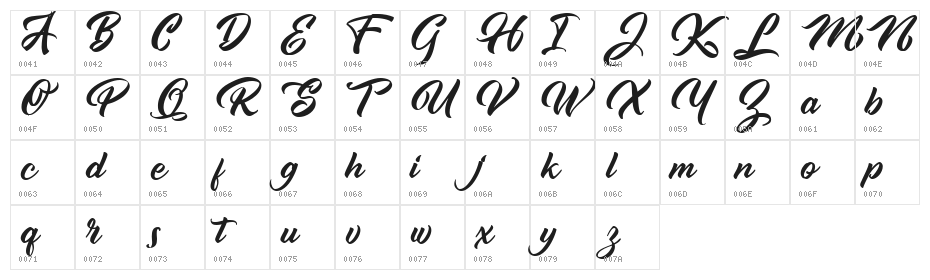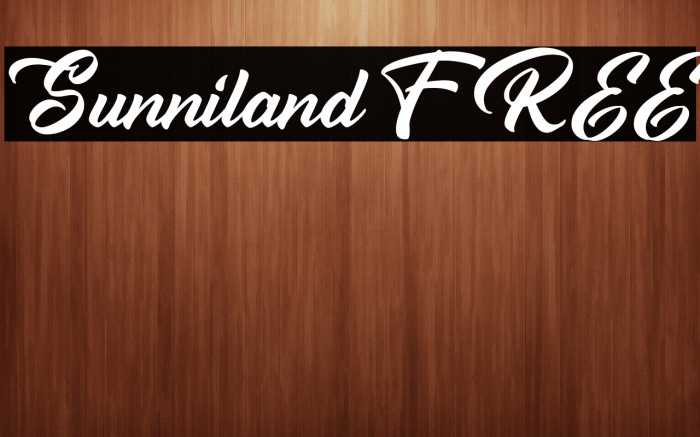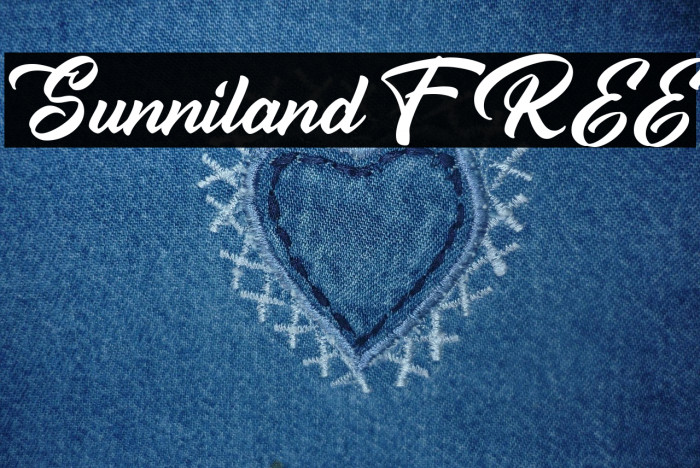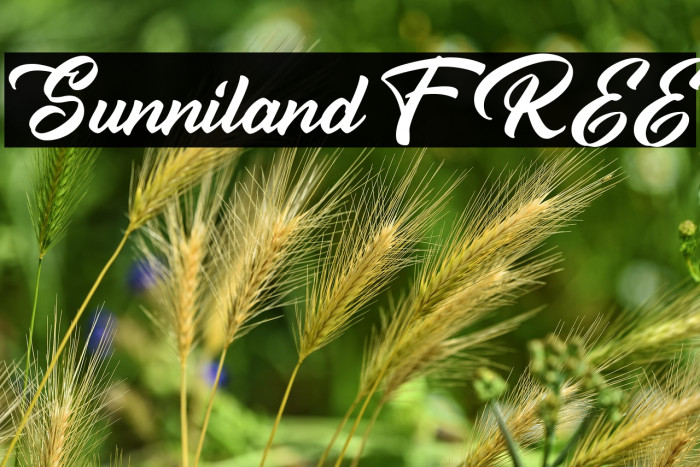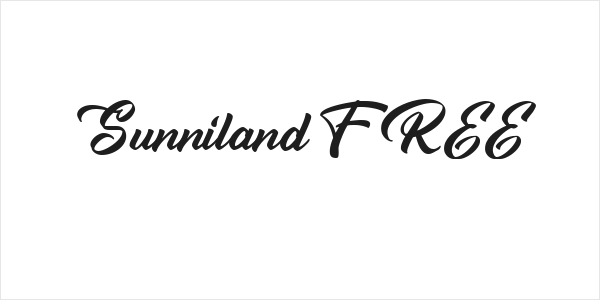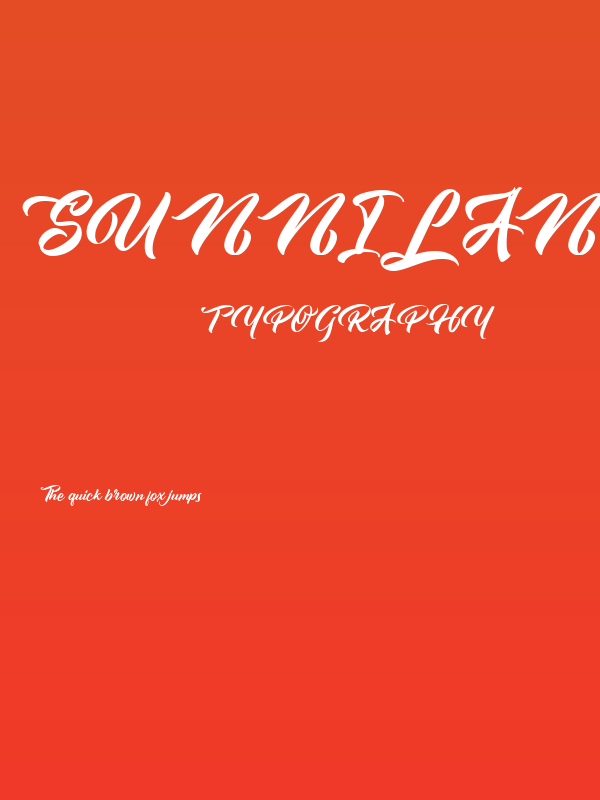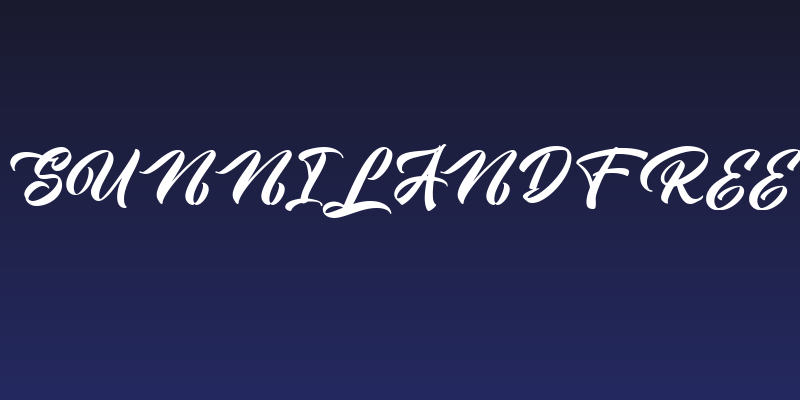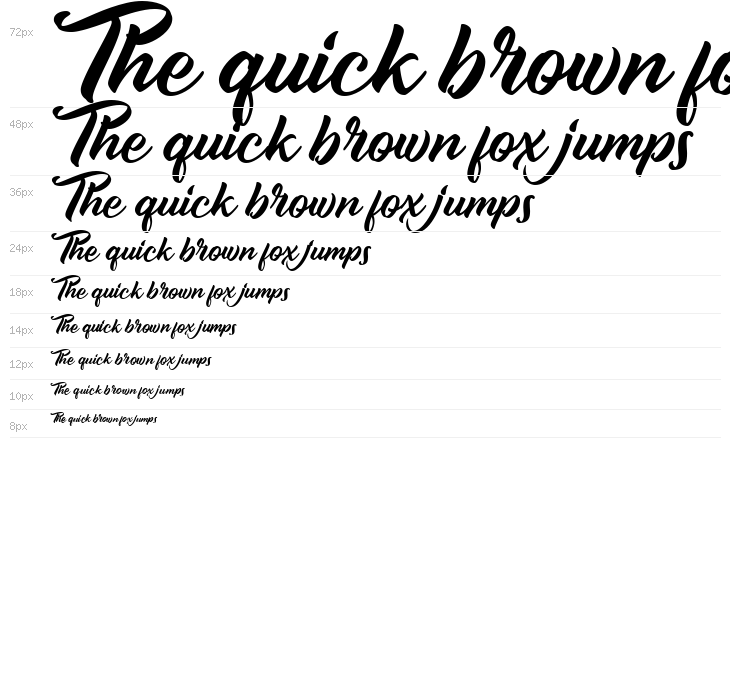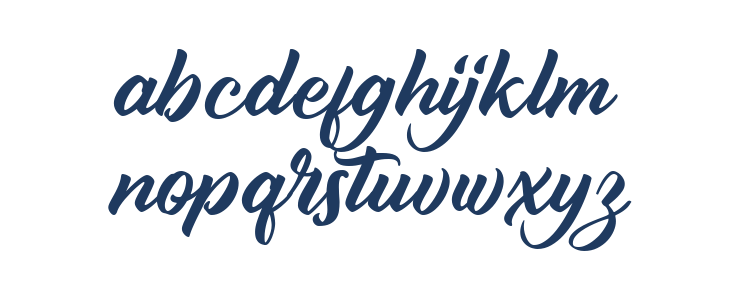
Sunniland FREE Font
Sunniland FREE Description
This font features a bold and flowing script style, characterized by its elegant and cursive letterforms. The uppercase letters are ornate with sweeping curves and flourishes, while the lowercase letters maintain a consistent fluidity, enhancing the overall aesthetic. The font exudes a sense of sophistication and charm, making it ideal for projects that require a touch of elegance. The numbers and special characters are designed to match the script style, ensuring a cohesive look across all text elements. The font's bold weight and high contrast between thick and thin strokes add to its visual impact, making it suitable for attention-grabbing designs.